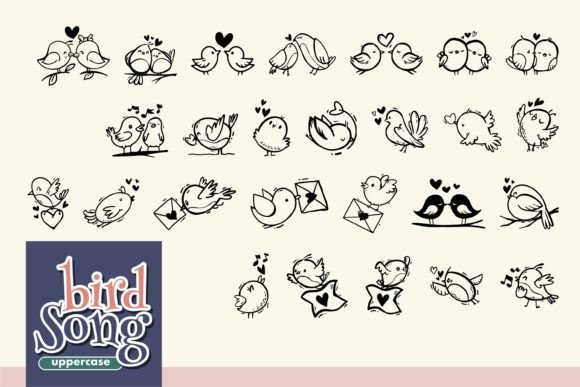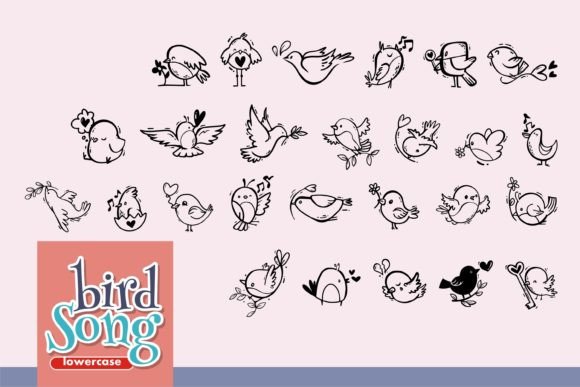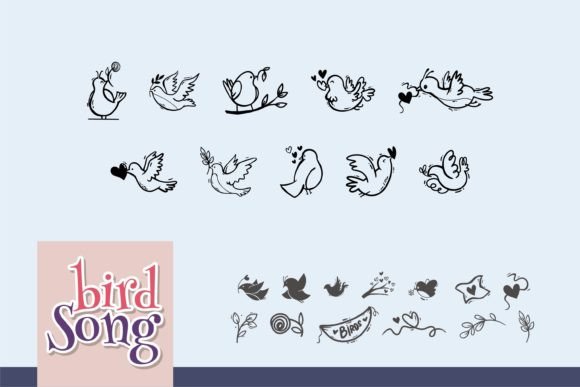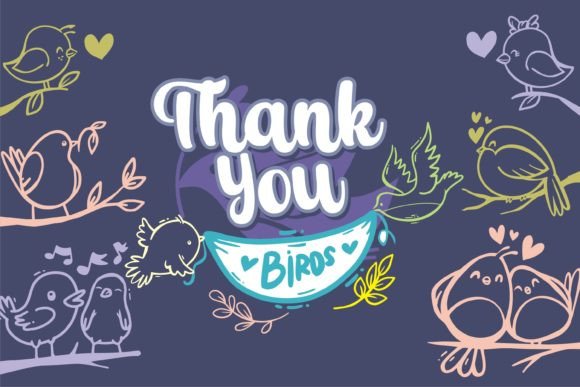
Bird Song Font: The Cute and Versatile Dingbats Font for Designers and Crafters
Are you tired of using the same old fonts for your designs? Look no further! Bird Song Font is a uniquely designed dingbats font that is sure to capture your heart with its cuteness. This versatile font can be used in a variety of styles, making it suitable for various designs, from crafts and digital design to presentations and greeting cards.
What is Bird Song Font?
Bird Song Font is a dingbats font that features adorable bird-themed characters, including birds, nests, eggs, and more. Each character is carefully designed to be visually appealing and easy to read, making it perfect for a wide range of design projects. Whether you’re a designer, crafter, or DIY enthusiast, this font is sure to become your go-to choice for adding a touch of whimsy and charm to your work.
Features of Bird Song Font
So, what makes Bird Song Font so special? Here are just a few of its key features:
- Unique and Cute Design: Each character in Bird Song Font is carefully designed to be visually appealing and adorable, making it perfect for designs that require a touch of whimsy and charm.
- Versatile: Bird Song Font can be used in a variety of styles, from playful and casual to elegant and sophisticated, making it suitable for a wide range of design projects.
- Easily Readable: Despite its decorative nature, Bird Song Font is easy to read, making it perfect for use in body text, headings, and titles.
Uses of Bird Song Font
Bird Song Font is a versatile font that can be used in a variety of design projects, including:
- Crafts: Use Bird Song Font to add a personal touch to your craft projects, such as handmade cards, gift tags, and scrapbooking pages.
- Digital Design: Incorporate Bird Song Font into your digital designs, such as social media graphics, blog posts, and website headers.
- Presentations: Add a touch of personality to your presentations with Bird Song Font, making them more engaging and memorable.
- Greeting Cards: Use Bird Song Font to create beautiful and unique greeting cards for special occasions, such as birthdays, holidays, and weddings.
Tips for Using Bird Song Font
Here are a few tips for getting the most out of Bird Song Font:
- Experiment with Different Sizes and Colors: Play around with different sizes and colors to find the perfect combination for your design.
- Mix and Match with Other Fonts: Combine Bird Song Font with other fonts to create a unique and visually appealing design.
- Use it for Headings and Titles: Use Bird Song Font for headings and titles to add a touch of personality to your design.
In conclusion, Bird Song Font is a uniquely designed dingbats font that is sure to capture your heart with its cuteness and versatility. Whether you’re a designer, crafter, or DIY enthusiast, this font is perfect for adding a touch of whimsy and charm to your design projects. With its easy-to-read characters, compatibility with various design software, and wide range of uses, Bird Song Font is sure to become your go-to font for all your design needs.